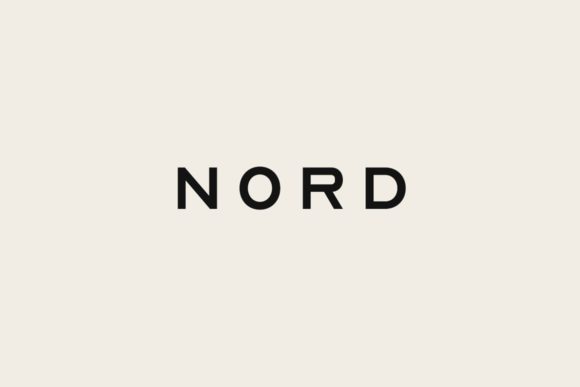
Introducing Nord Font - The Display Champion, A Minimalist Masterpiece!
Unleash the power of Nord Font, the ultimate display font crafted for captivating designs. Its striking simplicity and modern aesthetics make it the perfect choice for those seeking a timeless and versatile font. With its neat and organized structure, Nord Font effortlessly blends into any project, becoming your go-to font for every occasion.
With Nord Font, mundane designs transform into masterpieces, leaving a lasting impression on your audience. Its versatility knows no bounds, adapting seamlessly to logos, posters, branding, and eye-catching headlines. Experience the Nord Font difference and watch your creations come alive with a touch of elegance and sophistication.